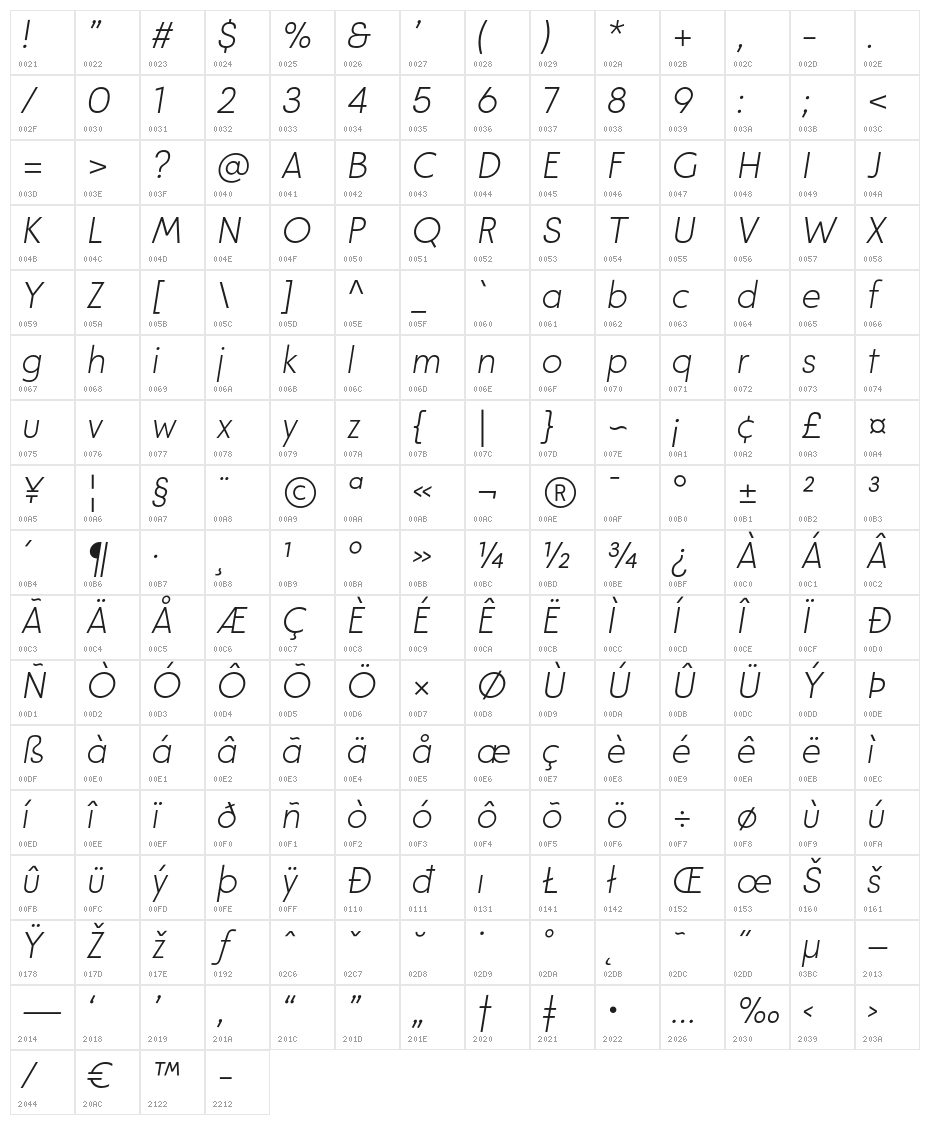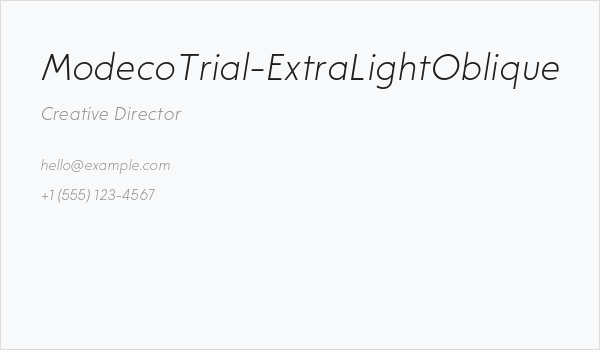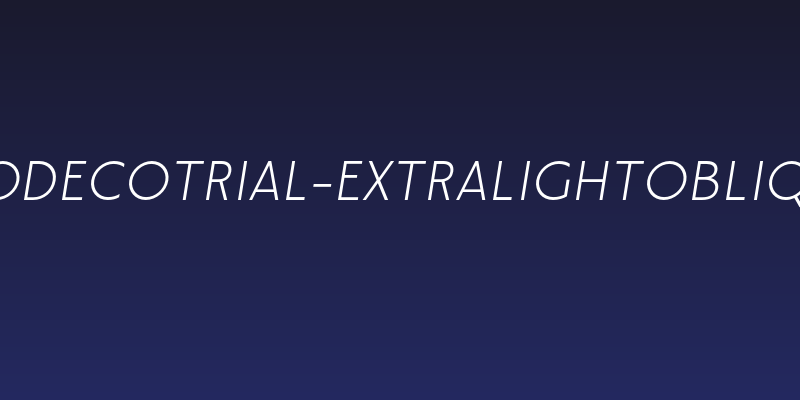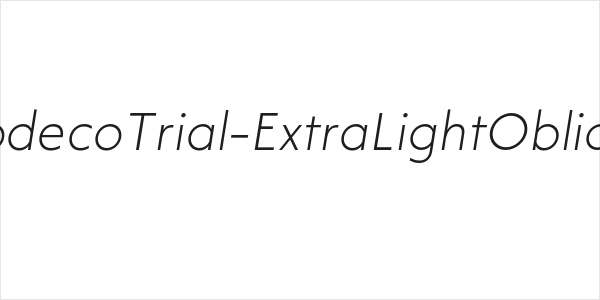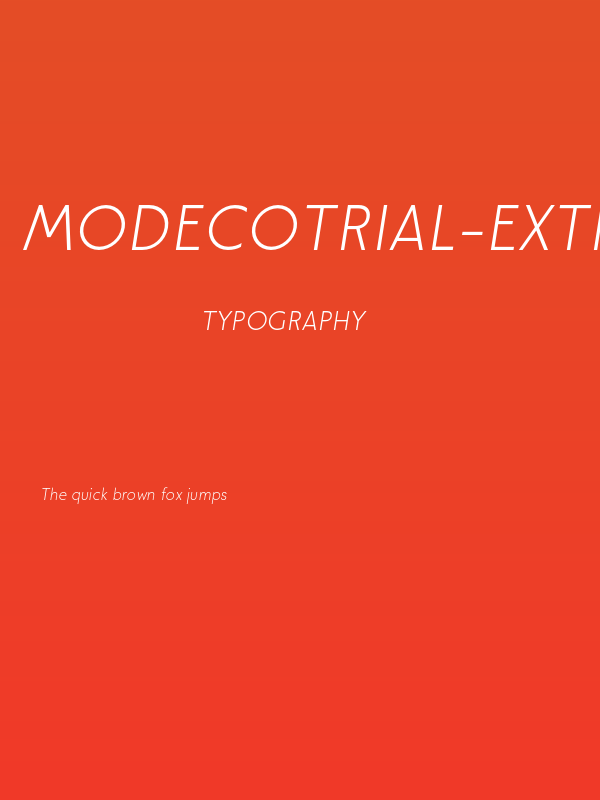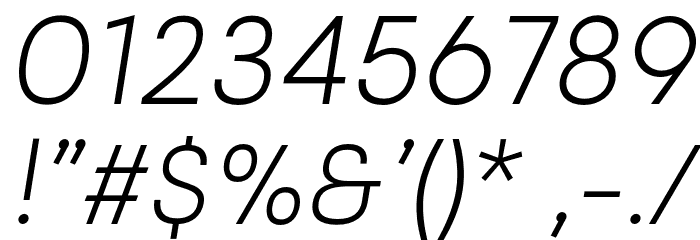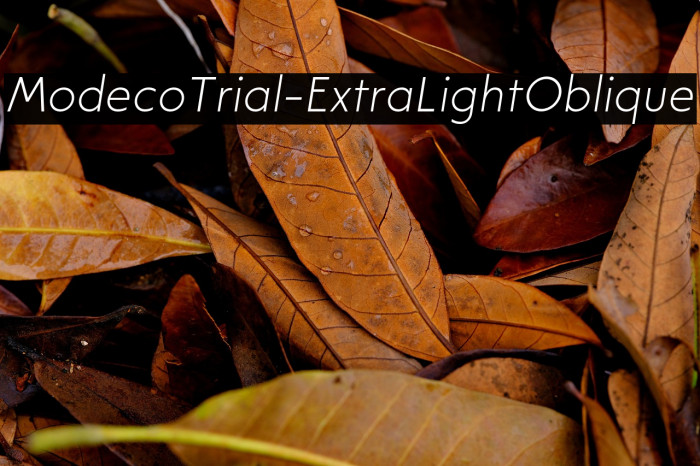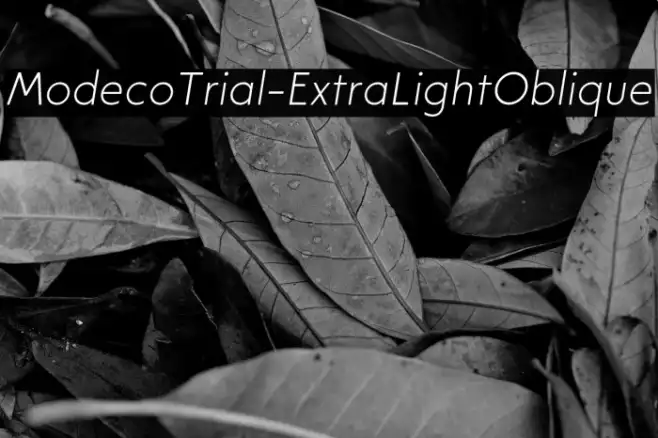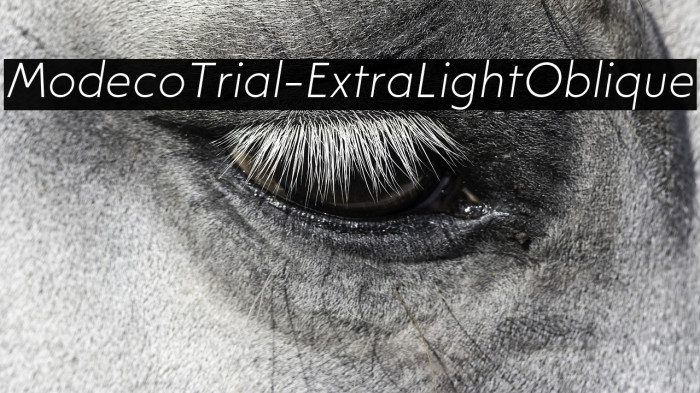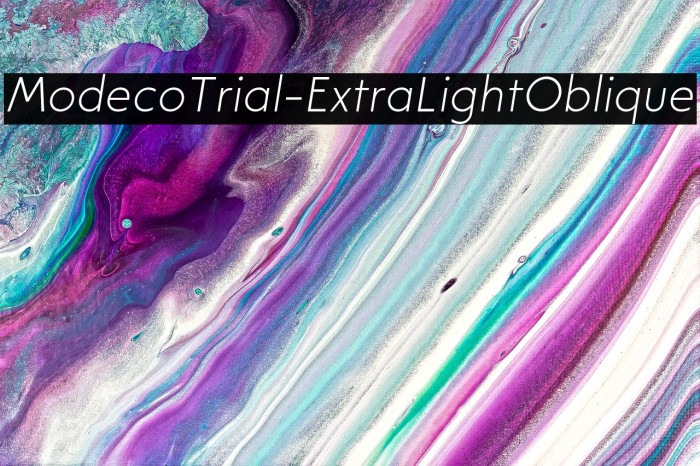
ModecoTrial-ExtraLightOblique Font
ModecoTrial-ExtraLightOblique Description
This font features a sleek, modern design with an oblique style that adds a sense of motion and elegance. The characters are thin and elongated, giving it an airy and sophisticated appearance. The uppercase and lowercase letters maintain a consistent height, contributing to a uniform and clean look. The numerals are clear and easy to read, while the special characters are well-integrated, ensuring versatility across different uses. Its minimalistic design makes it suitable for contemporary projects that require a touch of elegance.
| Proposed Projects | Ideal for modern branding, fashion magazines, minimalist posters, and elegant invitations. |